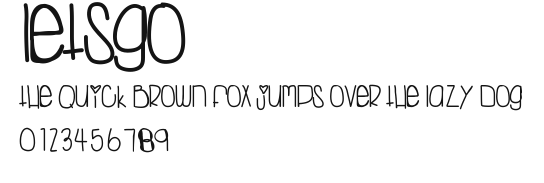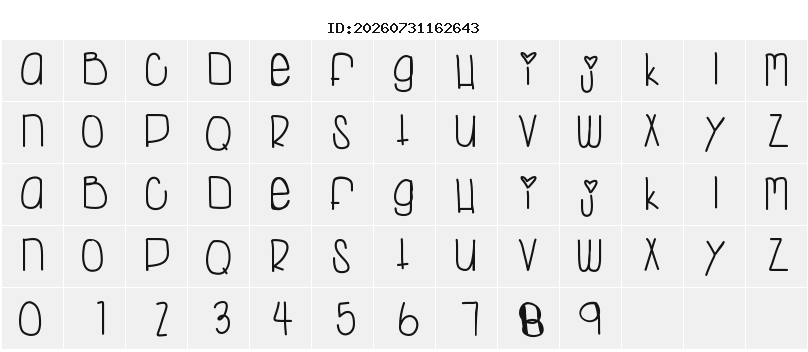
About LetsGo.ttf
LetsGo.ttf is a modern, elegant sans-serif font designed for ultimate readability and visual harmony. Perfect for branding, headlines, web design, and print materials.